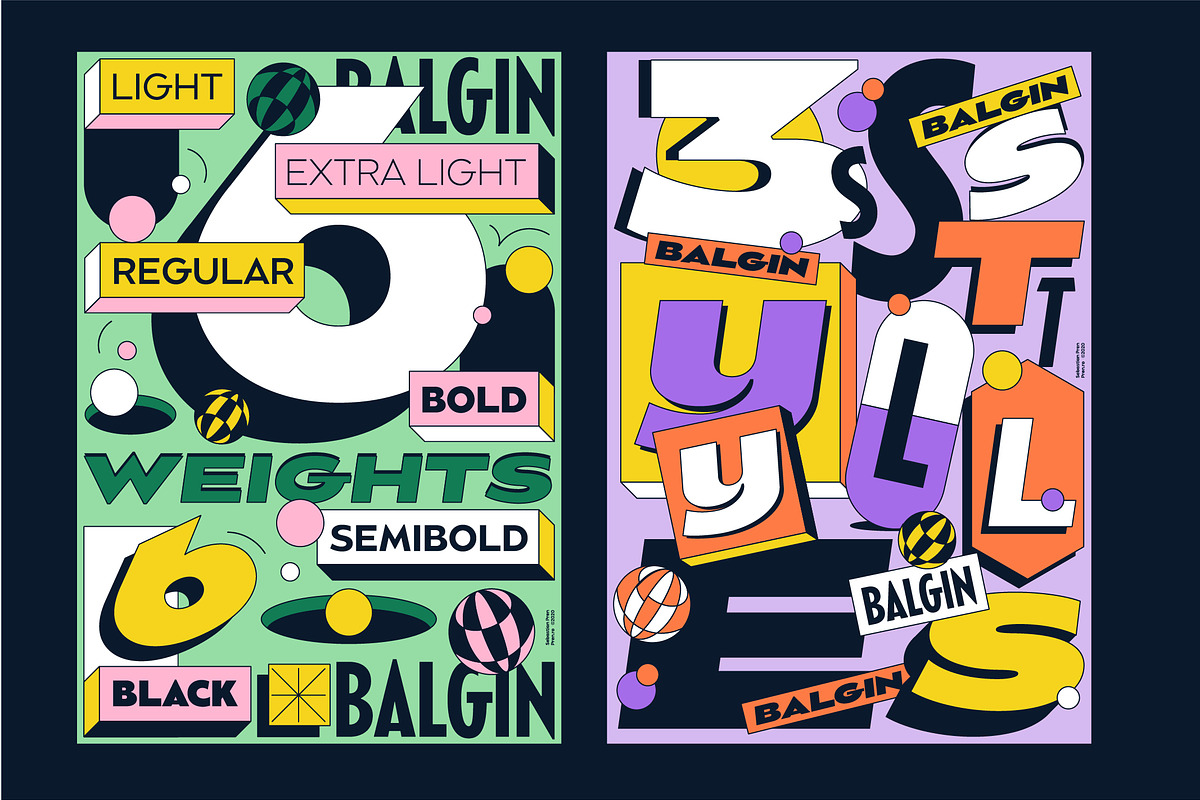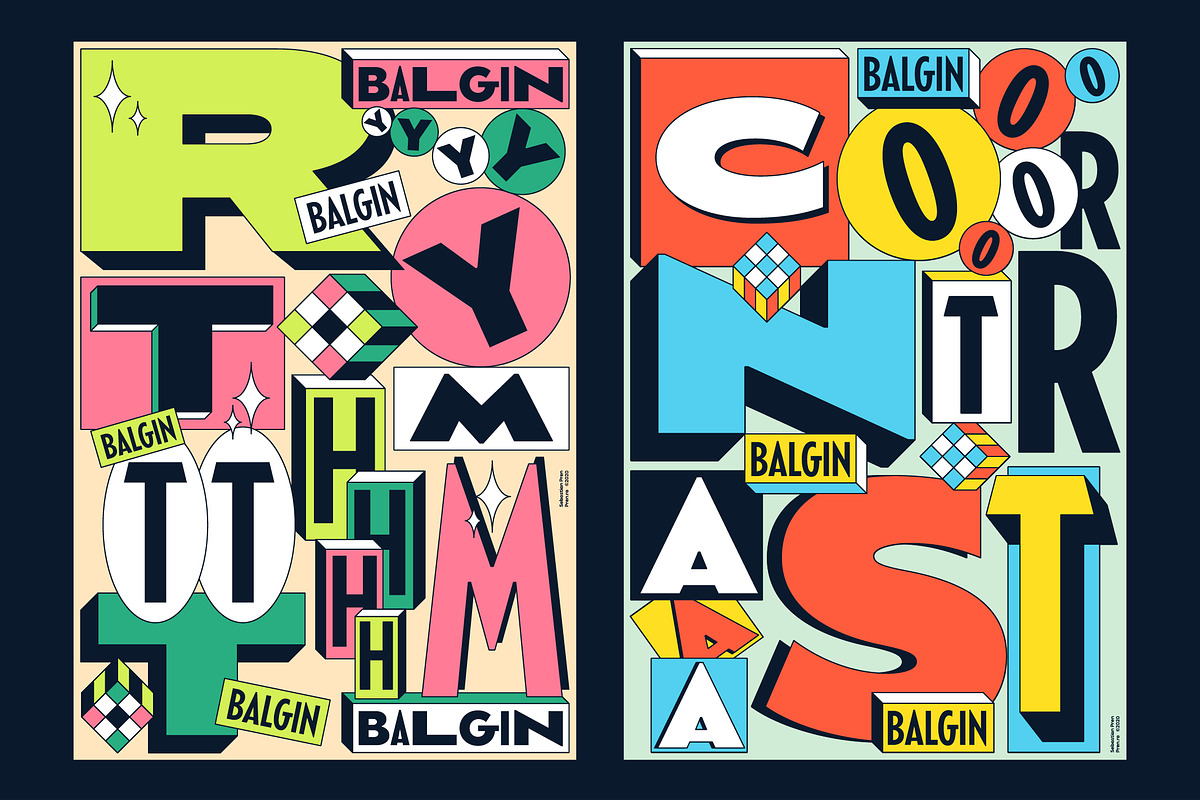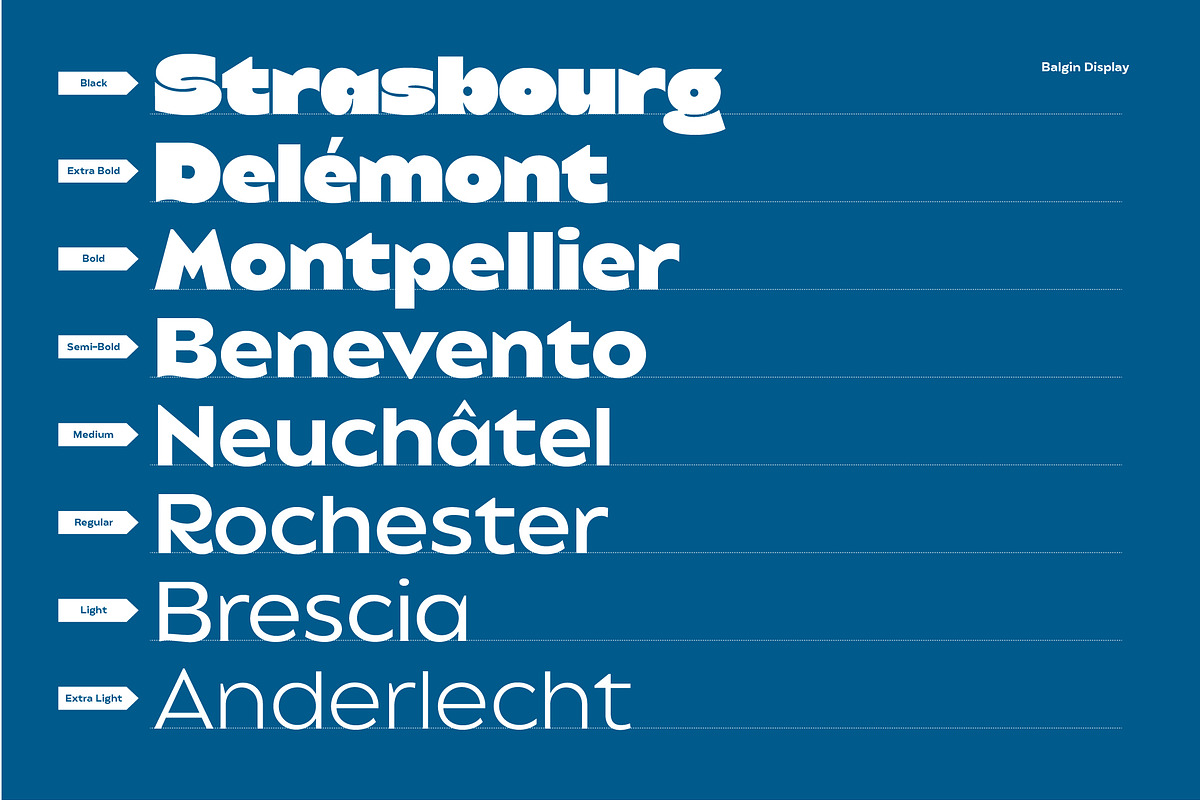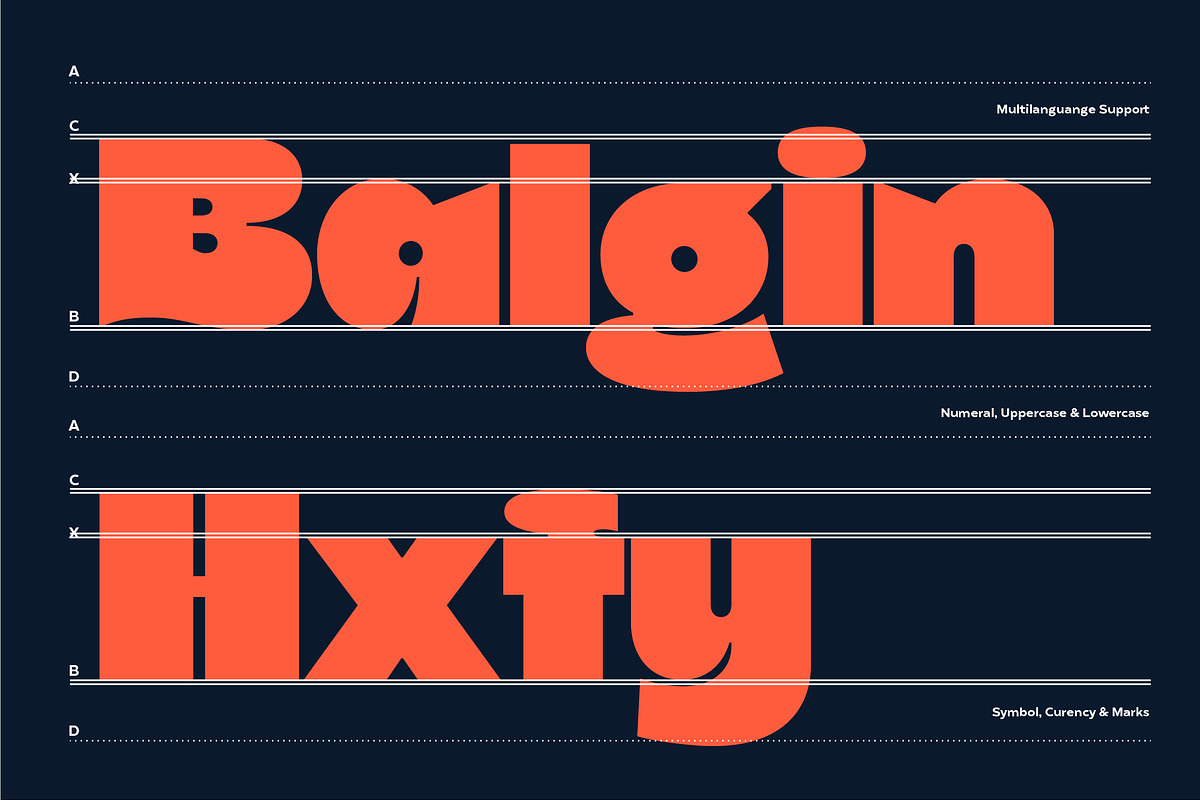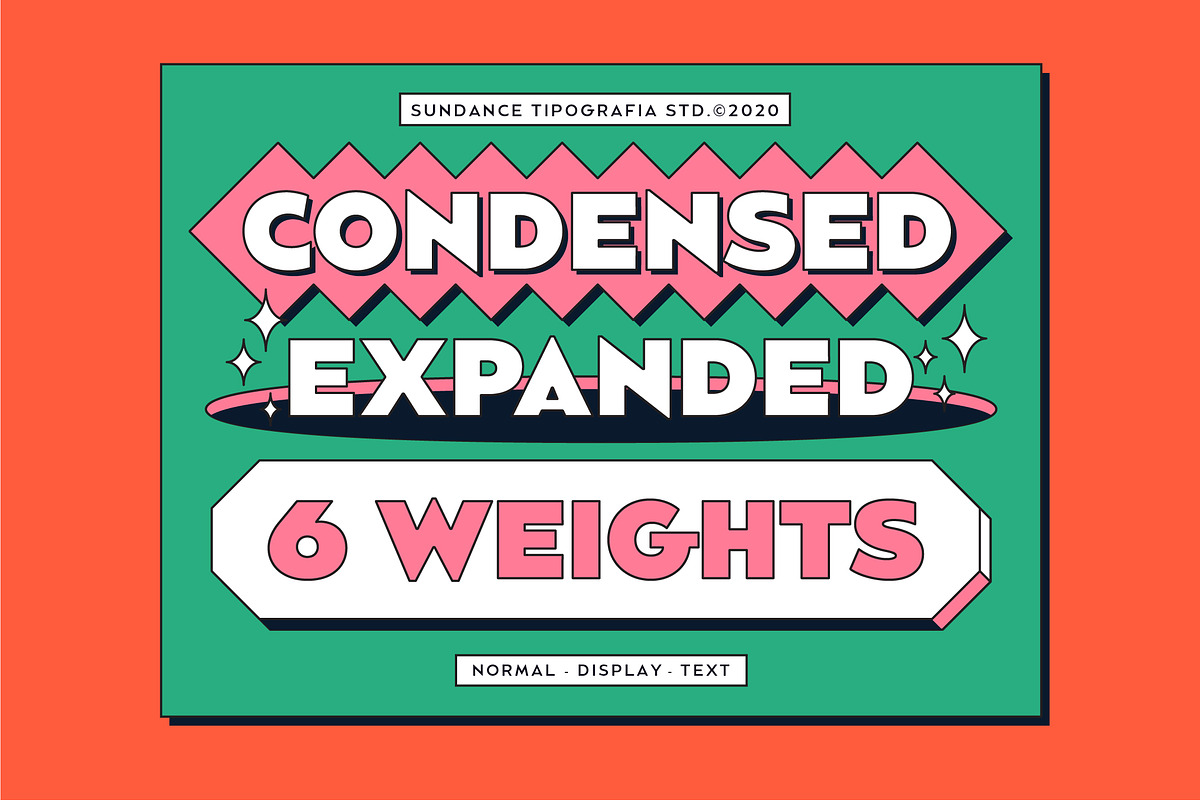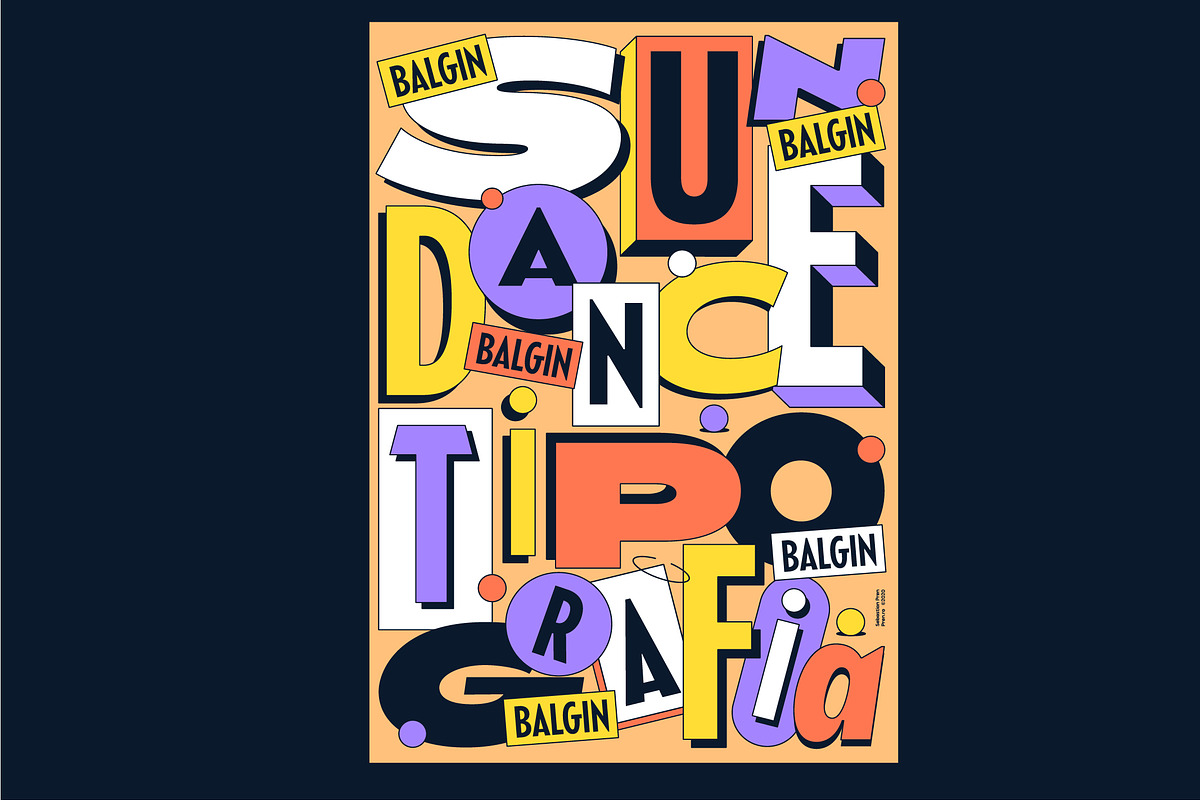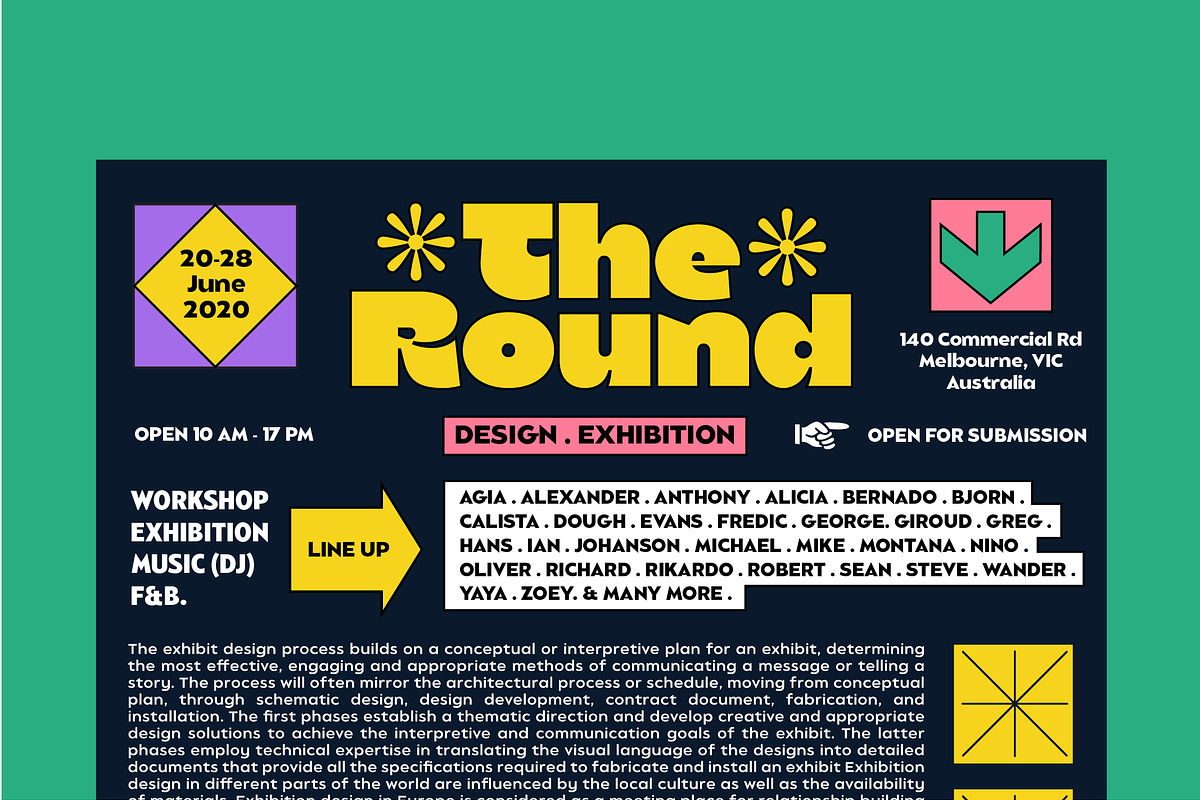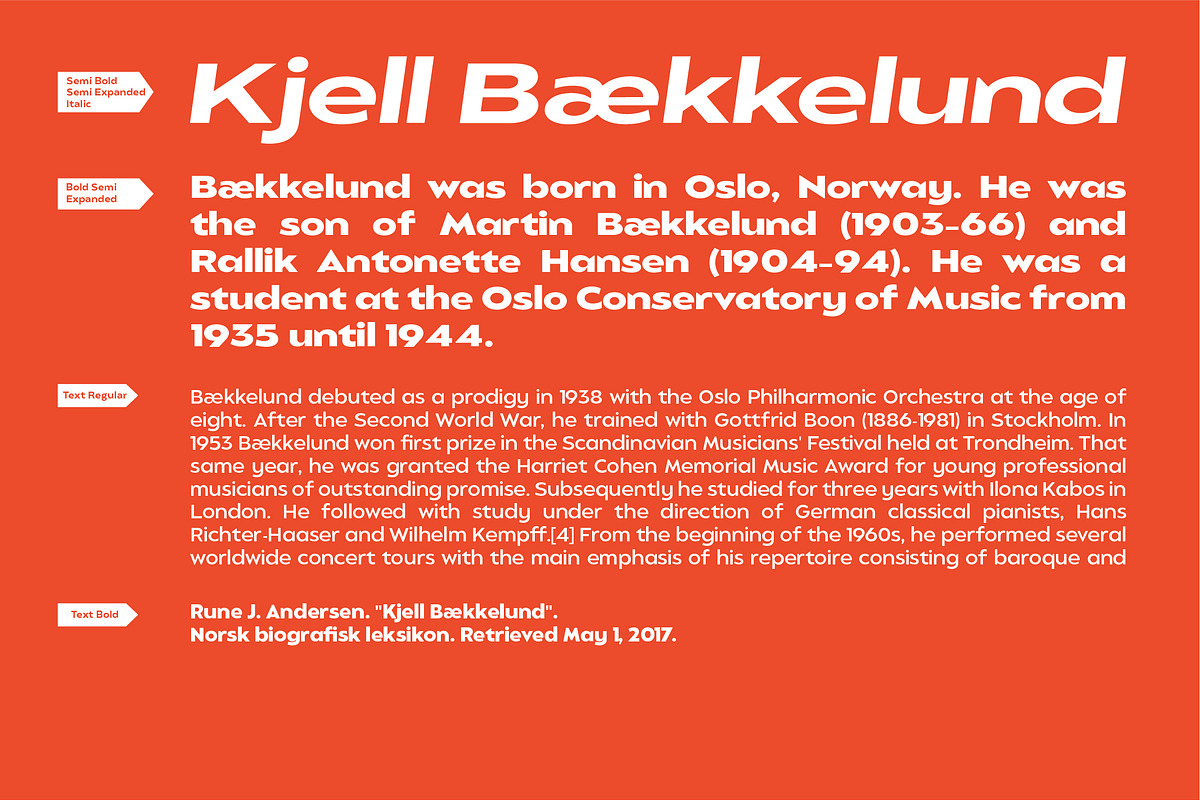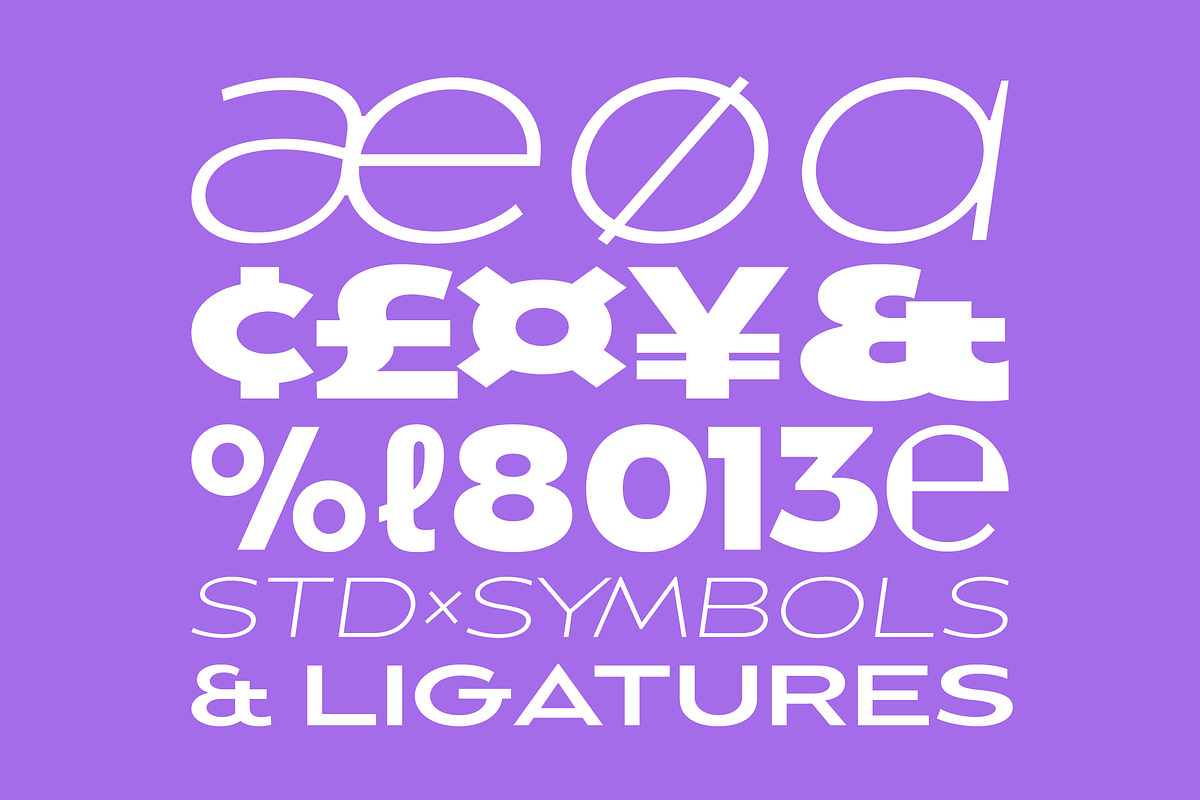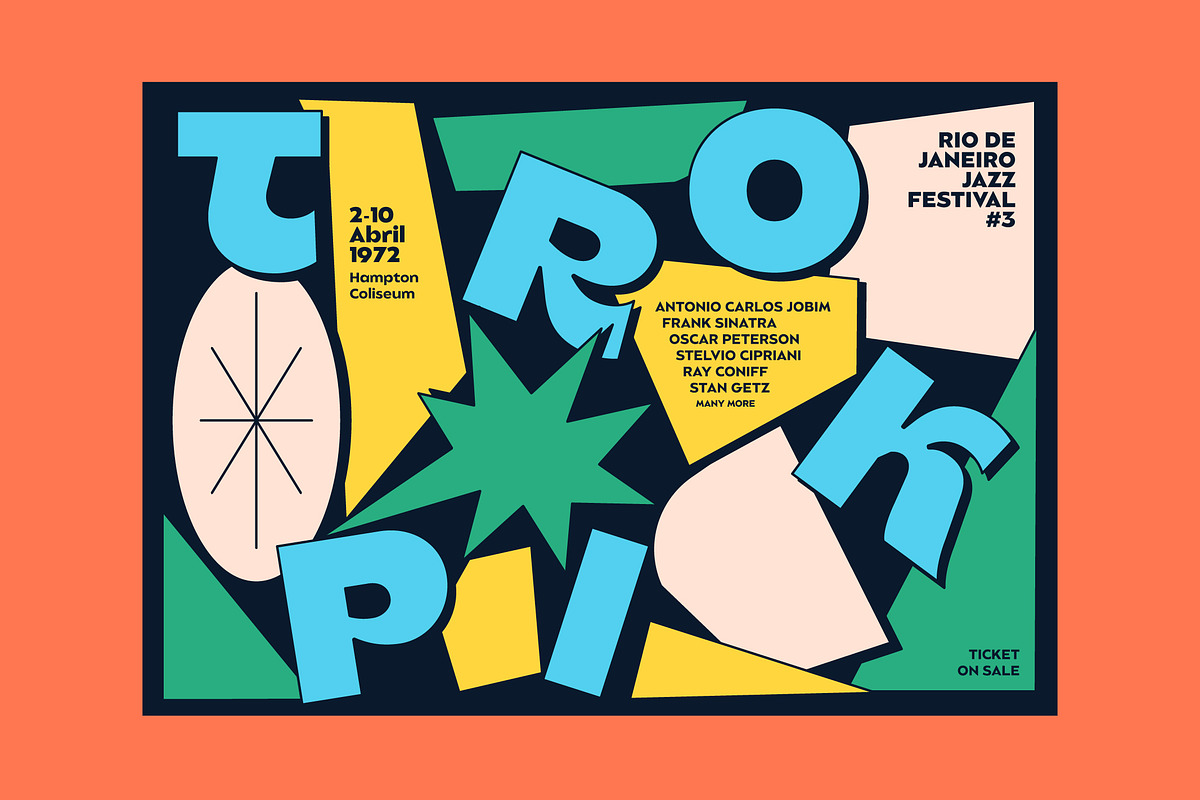
Balgin Font Family
Introduction Balgin Font Family brings back the nostalgic era of 90's. The 90’s were a magical time – a time of the Docs, Game Boys, and Cartoon. As everything that was once old is new again, the 90’s are making a come back.
The basic of typeface are from geometric/basic shapes (Triangle, Square, Circle) form. Some character in Display font are modified, like 'R'K' stroke are more dynamic. and the tail of 'g' are more generic. Balgin are available in 3 Flavour Typefaces (Display - Normal - Text) and have 6 different weights (For Normal are available on 5 Widths).